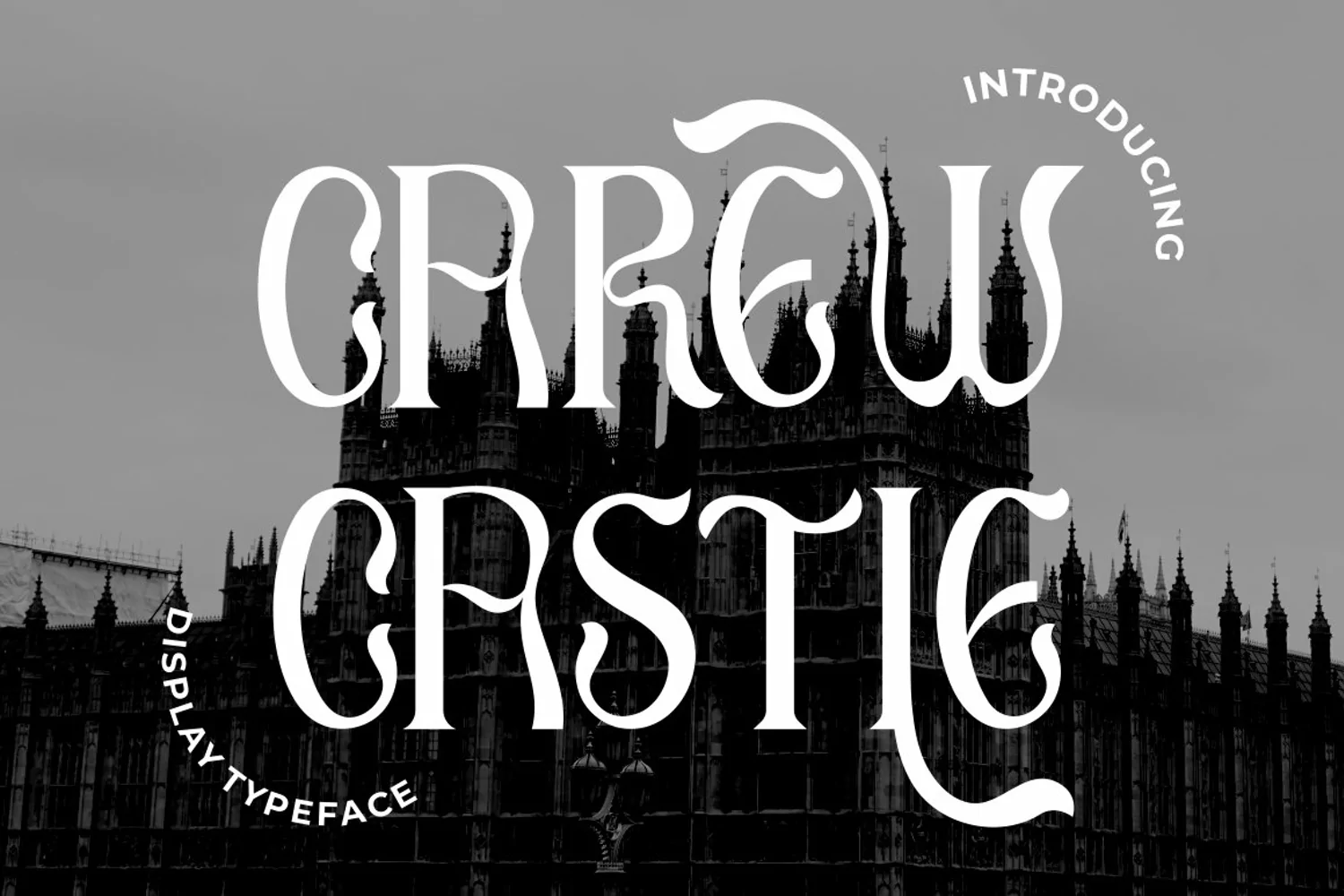
Carey Castle - Display Font
Introducing Carew Castle, a new display sans font inspired by luxury displays from classic book covers and combined with an elegant typeface style. With a total of 291 glyphs, this font offers endless display combinations for your lettering needs.
Carew Castle comes packed with open type features, including numerous alternates and end swashes, to help you create amazing lettering. The font also supports multiple languages, making it a versatile choice for a wide range of design projects.
Carew Castle is best used for logotypes, headings, covers, posters, logos, quotes, product packaging, headers, merchandise, social media, greeting cards, and more.